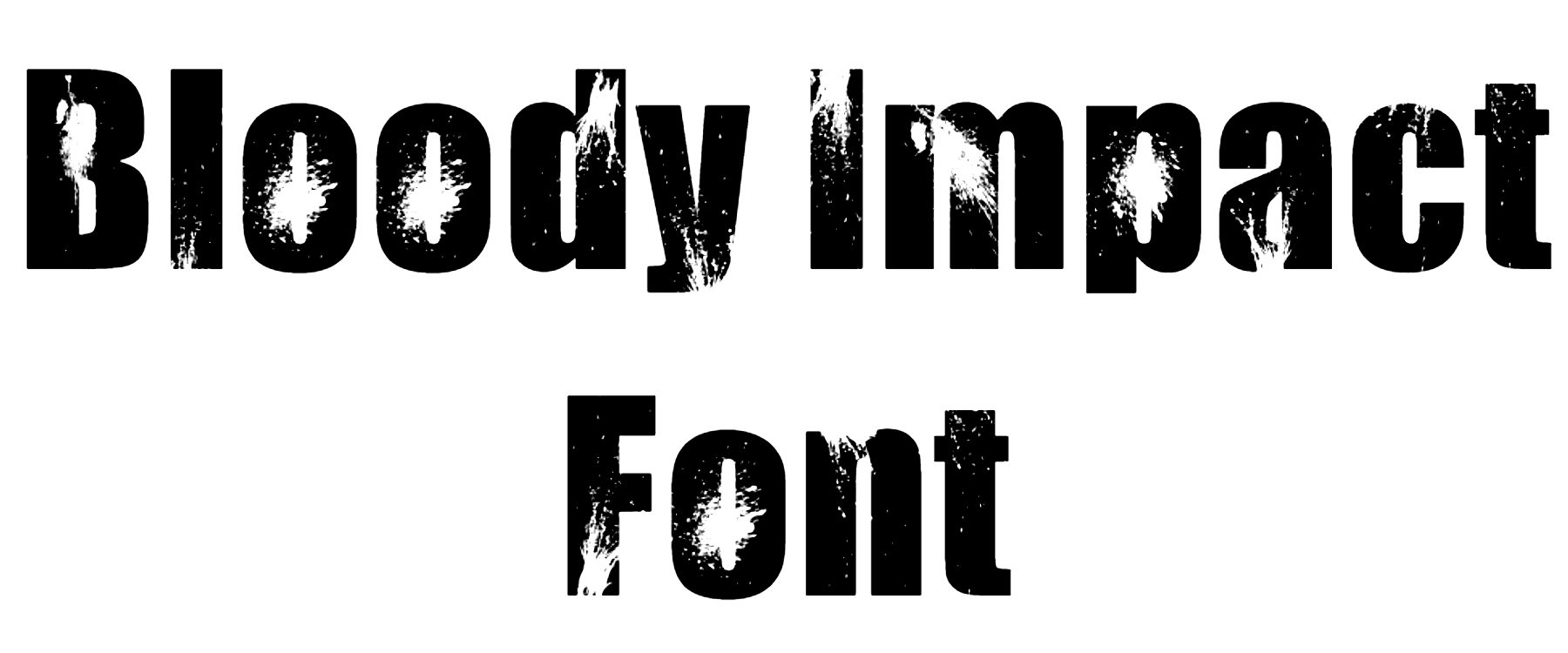
Bloody Impact
Bloody Impact is a fancy font created by Jason L. Arthur (2014). Bold and full of character, it's built to stand out rather than blend in. You can download it for free and test it with your own words in the preview above.
- Languages: English, Spanish and Italian, plus Greek characters
What You Can Type With Bloody Impact
With complete upper and lowercase letters and all ten digits, Bloody Impact is ready for real wording, not just a single headline. Everyday marks like &, !, ? and @ are there too. Thanks to its accented letters, it also works for Spanish and Italian, not just English. On top of that, it includes Greek characters.
Where Bloody Impact Works Best
Designers usually reach for fonts like Bloody Impact when they're making posters, logos and eye-catching headlines. Its lowercase letters are tall compared to the capitals, which keeps it readable at smaller sizes. Use it for one standout word or headline and let simpler fonts handle the rest.